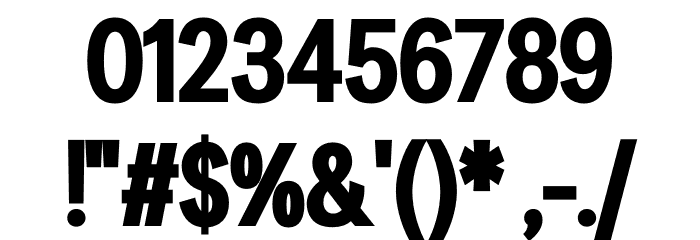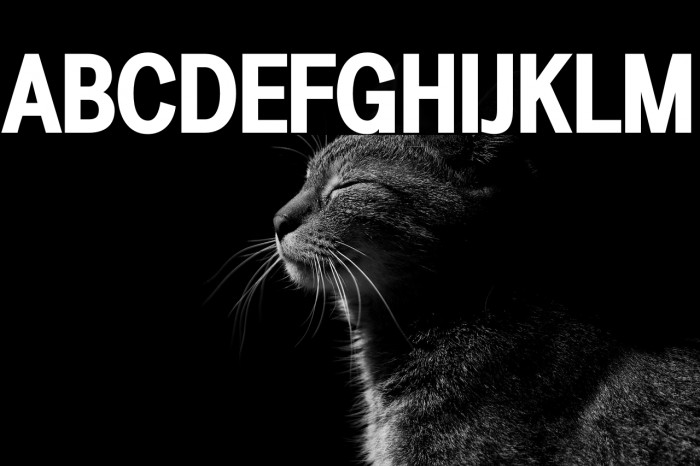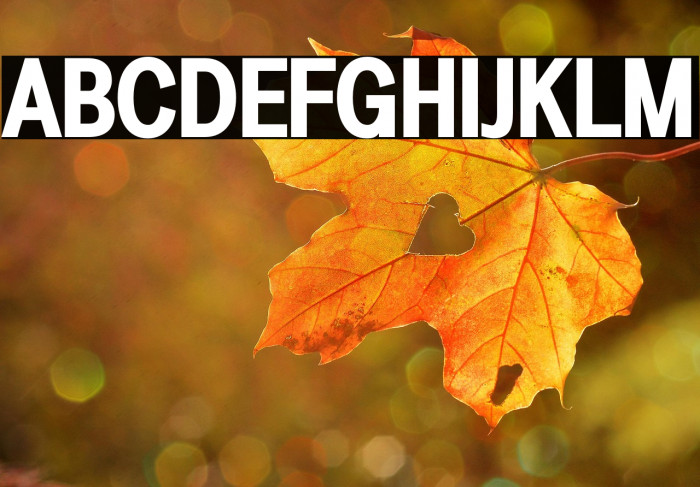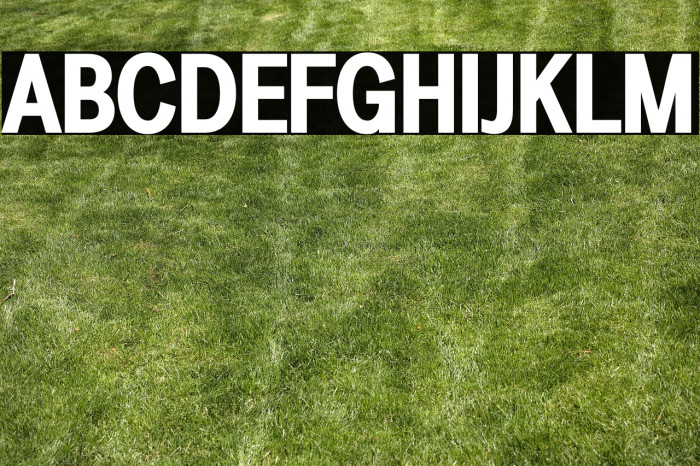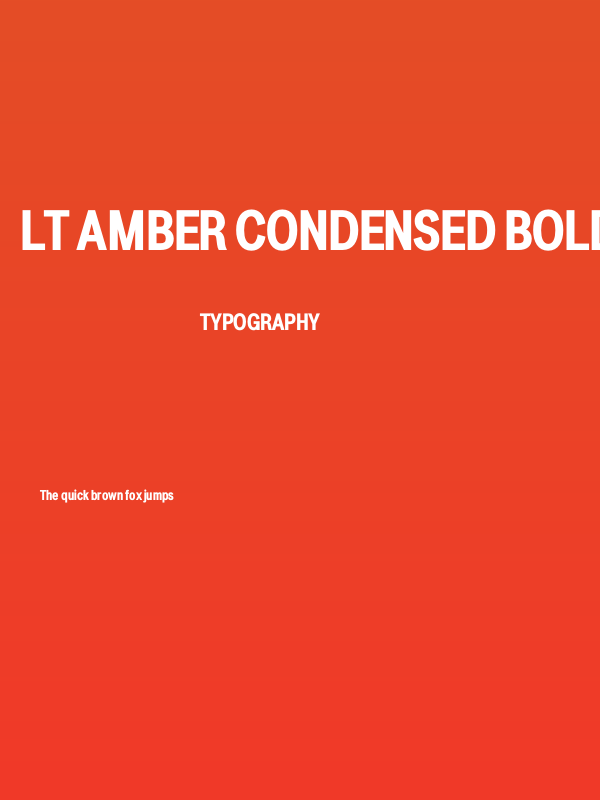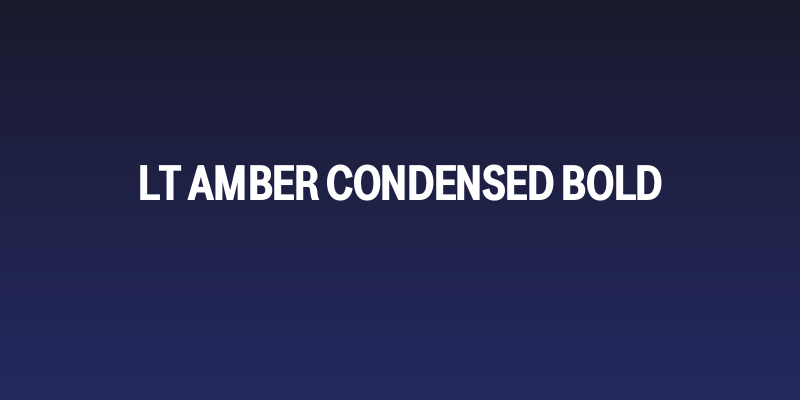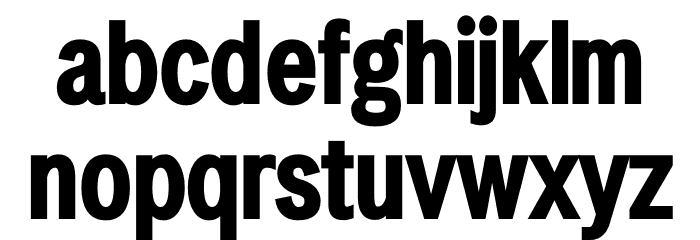
LT Amber Condensed Bold Font
LT Amber Condensed Bold Description
This font features a bold and condensed style, making it highly impactful and attention-grabbing. The uppercase and lowercase letters are designed with a strong presence, characterized by thick strokes and minimal contrast. The numerals and special characters maintain the same boldness, ensuring consistency across all glyphs. The condensed nature of the font allows for efficient use of space, making it ideal for headlines and titles where space is limited but impact is necessary. The overall design is modern and clean, suitable for a variety of applications that require a strong visual statement.
| Proposed Projects | Ideal for headlines, posters, advertising, and branding projects that require a strong and bold visual impact. |